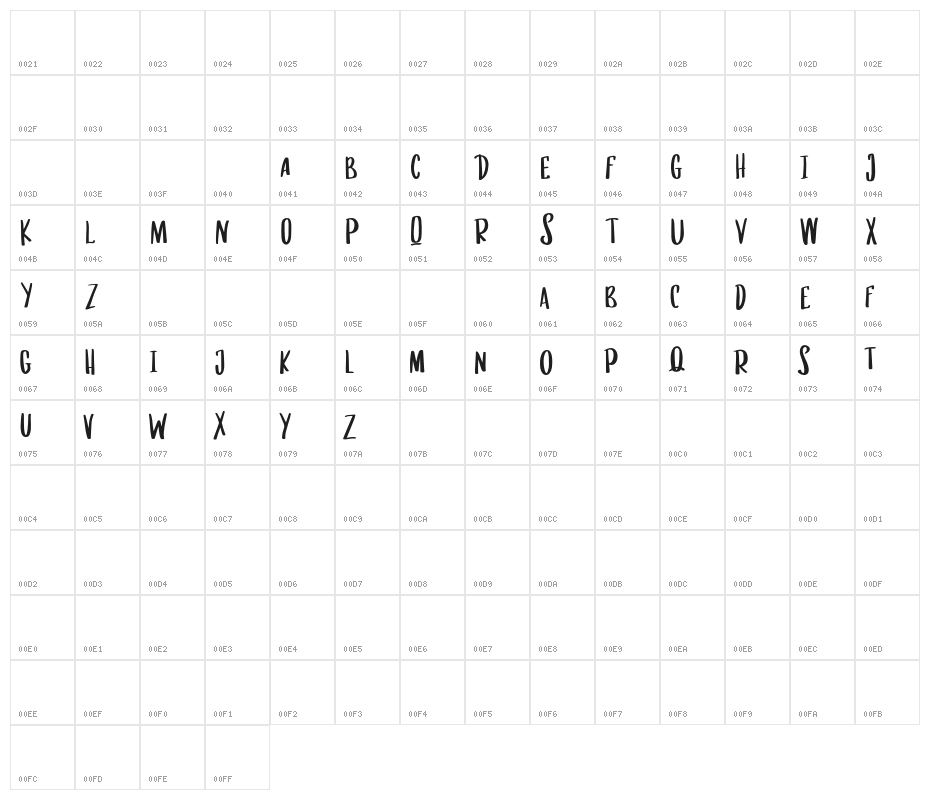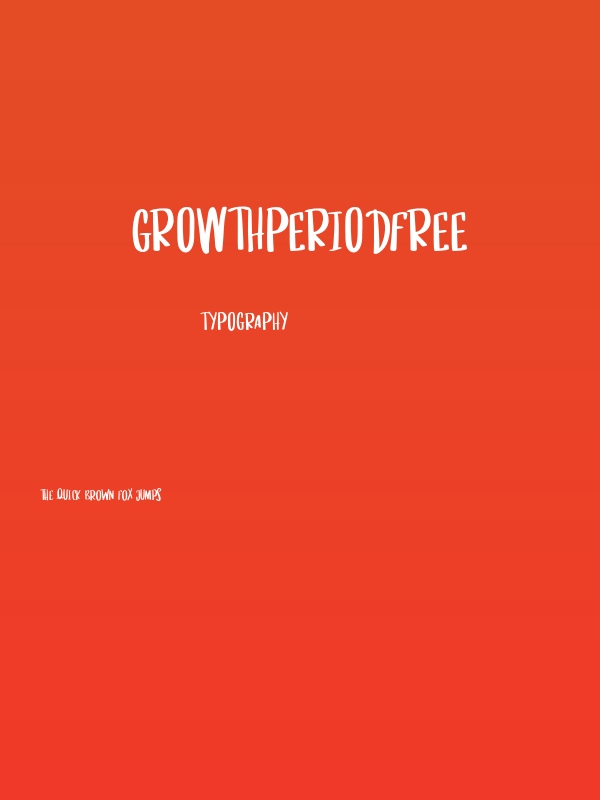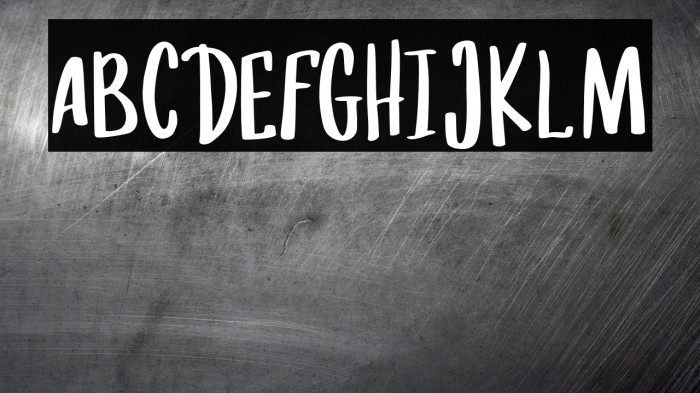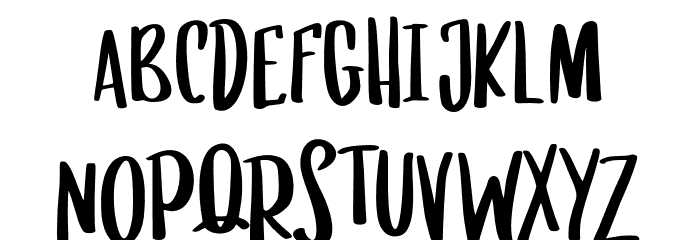
GrowthPeriodFREE Font
GrowthPeriodFREE Description
This font features a playful and dynamic style with a handwritten appearance. The letters are bold and slightly irregular, giving them a lively and informal feel. The uppercase and lowercase characters maintain a consistent flow, with some letters exhibiting unique flourishes and curves. The strokes are thick, contributing to a strong visual presence, while the overall design remains approachable and friendly. This font is well-suited for projects that require a touch of personality and creativity.
| Overall Style | Playful, Creative |
| Proposed Projects | Ideal for greeting cards, posters, branding, and social media graphics that require a personal and creative touch. |